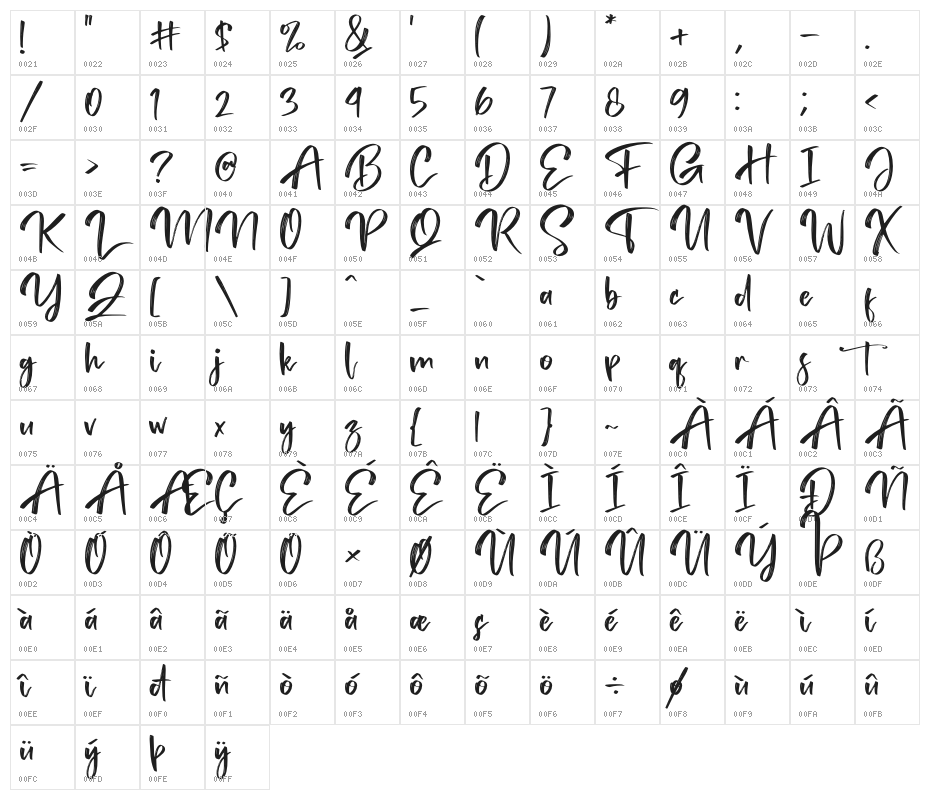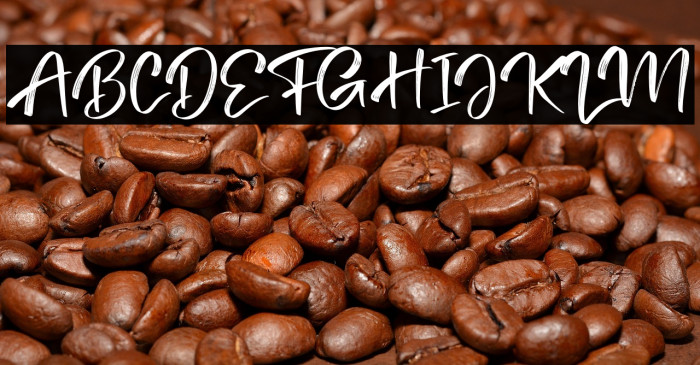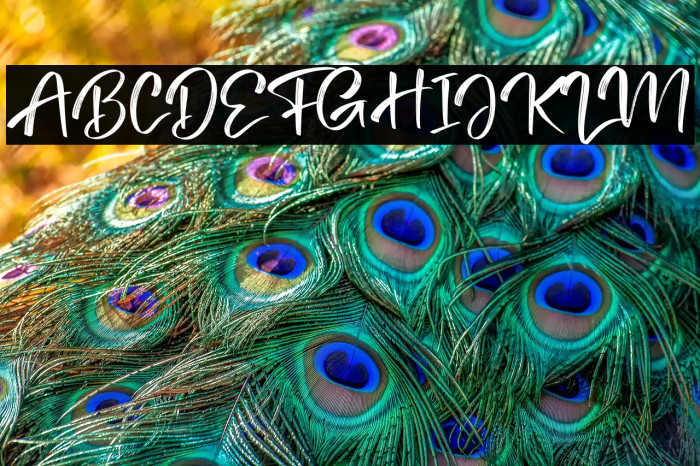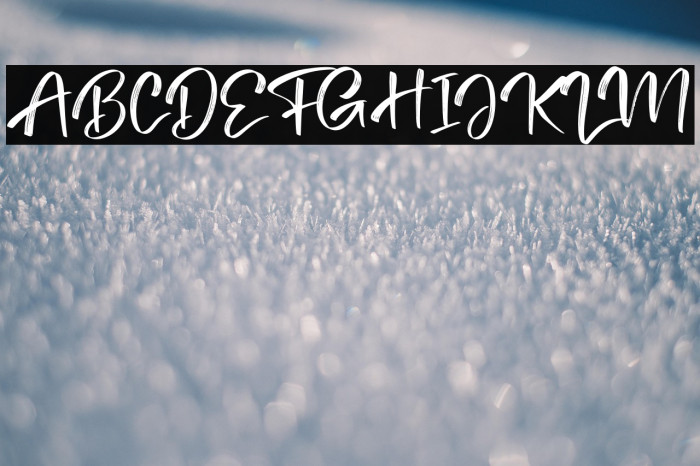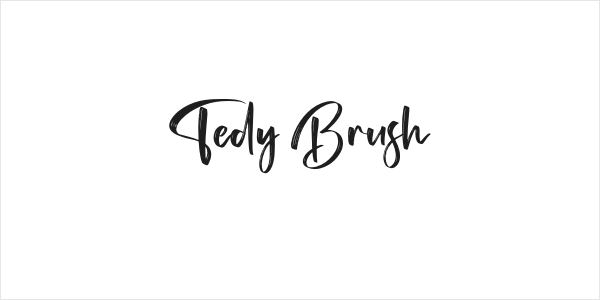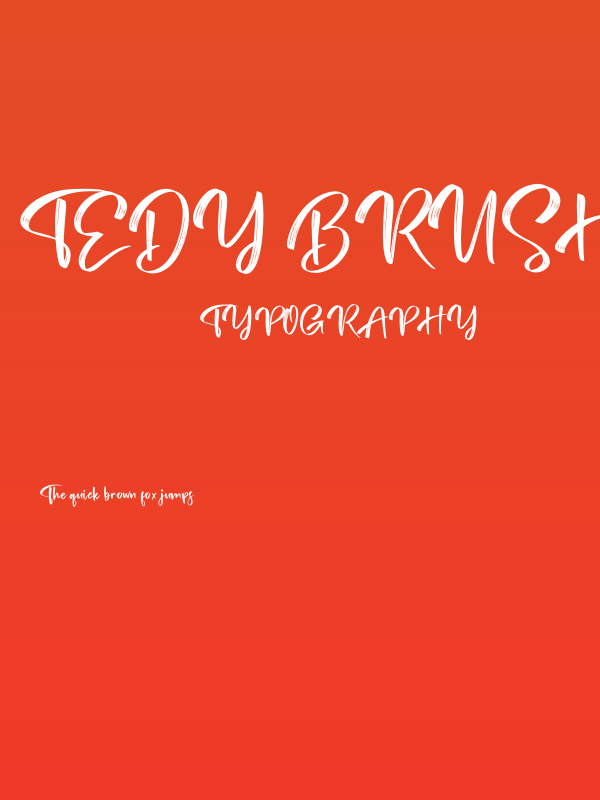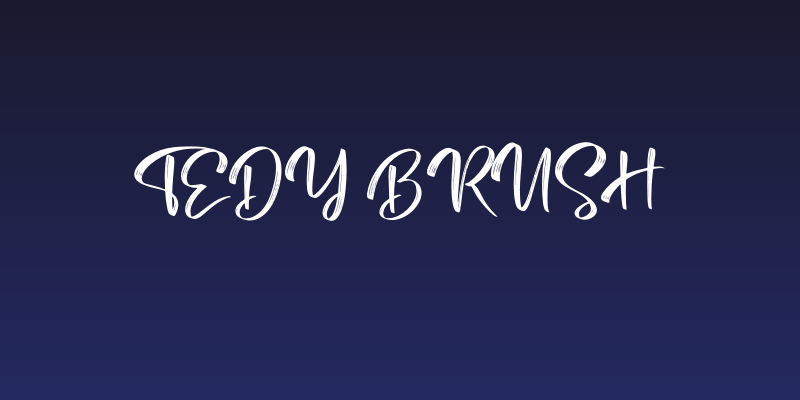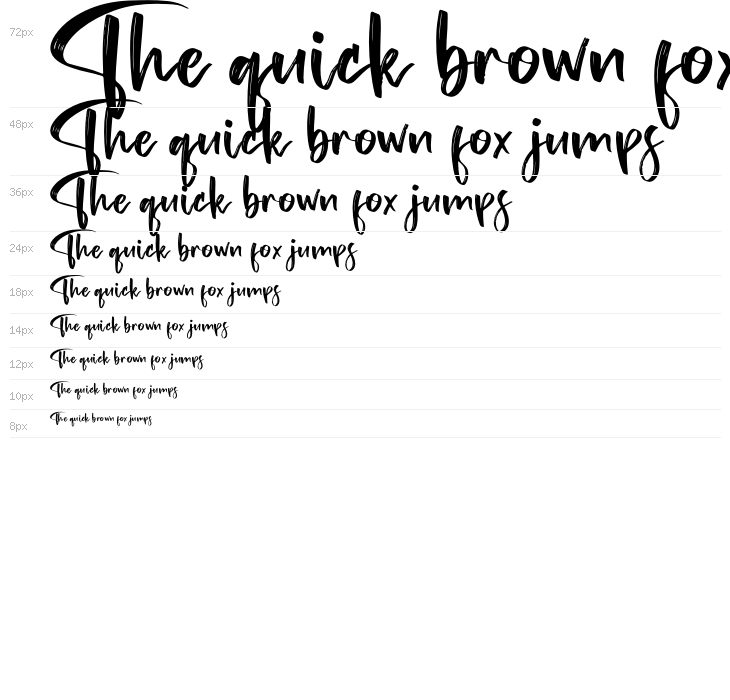
Tedy Brush Font
Tedy Brush Description
This font features a bold, brush script style with a dynamic and energetic appearance. The letters are crafted with a fluid, hand-drawn quality, showcasing thick and thin strokes that create a lively rhythm. The uppercase letters are slightly more structured, while the lowercase letters exhibit a playful and casual flair. The numbers and special characters maintain the same expressive style, making them cohesive with the alphabet. This font's artistic nature makes it ideal for creative and informal projects.